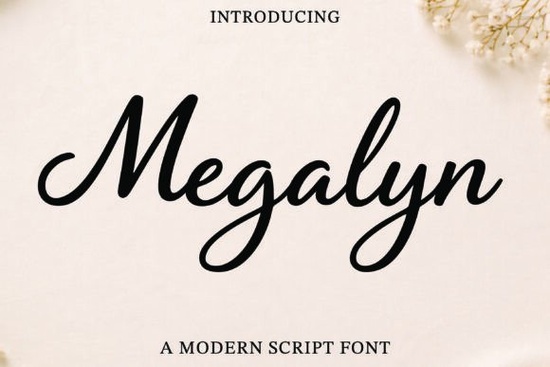
Finding the right typography for a romantic or feminine project can be tricky, but the Megalyn Font makes it effortless. This modern elegant script brings smooth flowing strokes and graceful curves to your layouts. Whether you are designing wedding invitations, creating a new logo for a small business, or putting together social media graphics, this natural handwritten style adds a stylish and timeless feel to your work. It strikes a great balance between sophistication and warmth, giving your text a genuinely personal touch without looking messy.
How does this script font look in real design projects?
When you are working on wedding invitations or boutique branding, you need a typeface that feels premium but still approachable. The smooth connections between letters give it a very fluid, organic look. It works beautifully for main headings, monograms, and packaging details. If you are designing a logo and feel like you need something with a bit more bold contrast, you might also want to look at this bold script option to see how different stroke weights can change the mood of your design.
Is it easy to read for everyday crafting and printing?
Print-on-demand sellers and crafters often worry about delicate scripts getting lost on physical products. Because the strokes are well-proportioned and the curves are graceful rather than overly thin, it holds up really well on vinyl decals, ceramic mugs, and apparel. You do not have to worry about the letters bleeding together when scaled down. For projects that require a slightly more casual, everyday feel on t-shirts or tote bags, this relaxed handwritten style is another great option to keep in your library.
What makes it stand out from other elegant scripts?
Many script typefaces look either too stiff or too messy. This one captures a natural handwritten feel that looks authentic. It is perfect for feminine design projects, beauty brands, and lifestyle blogs where you want to convey warmth and care. The natural flow of the letters means you can use it for longer phrases without it becoming hard to read. If you are working on a project that needs a bit more of a structured, preppy vibe, you could pair it with this clean prep style for a nice visual contrast.
Can I use it for social media and digital marketing?
Absolutely. Social media graphics require typography that grabs attention quickly while remaining legible on small screens. The stylish curves stand out nicely against both light and dark backgrounds. It is highly effective for Instagram quotes, Pinterest pins, and YouTube thumbnails. When you want to create a friendly, approachable vibe for your daily posts, this friendly handwritten look works wonderfully alongside it for secondary text or watermarks.
How do I get the best results when pairing it with other text?
The secret to using a highly decorative script is keeping the rest of your layout clean. Pair it with a simple, geometric sans-serif or a classic serif for your body copy. This lets the main script shine without overwhelming the reader. For your secondary accent text, keeping things minimal is key, so a lighter accent script will keep the layout balanced if you need a second handwritten element.
Quick Checklist for Using This Typeface
- Check your sizing: Keep the font size large enough so the graceful curves remain clear and do not blur together.
- Limit your palette: Use this typeface for headings only and pair it with a simple sans-serif for paragraphs.
- Test your materials: Always print a small physical proof before committing to a large batch of wedding invites or product labels.
- Mind the tracking: Give the letters a little extra breathing room if you are using it in all-caps or for short, punchy phrases.